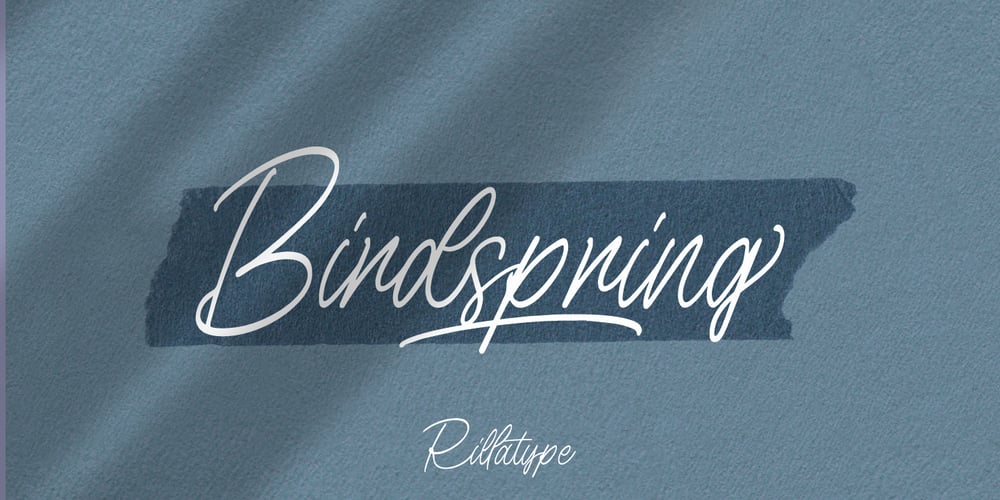
Birdspring Signature Font Family was designed by Gustian Agung Asprilla and published by Rillatype. Birdspring Signature contains 1 styles and family package options. Birdspring Signature is a font that can meet your needs to make handwriting that has strong characteristics. This font is perfect for use in branding, wedding invitations, packaging, and so on. This font also equipped with up to 14 ligatures that will make every word you write more eye catching.We hope you enjoy the font, for more question feel free to ask us at rillatype@gmail.com.